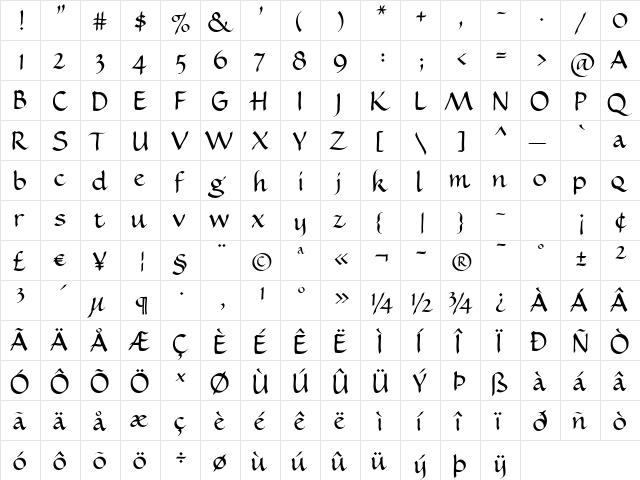
DemiTasse Regular
Design Context for DemiTasse Typeface
DemiTasse offers clean, dependable letterforms without strong stylistic allegiance, making it a practical choice for designers who need flexibility.
Pro Tip: Use DemiTasse in both headline and body roles to test its range before committing to a single application.